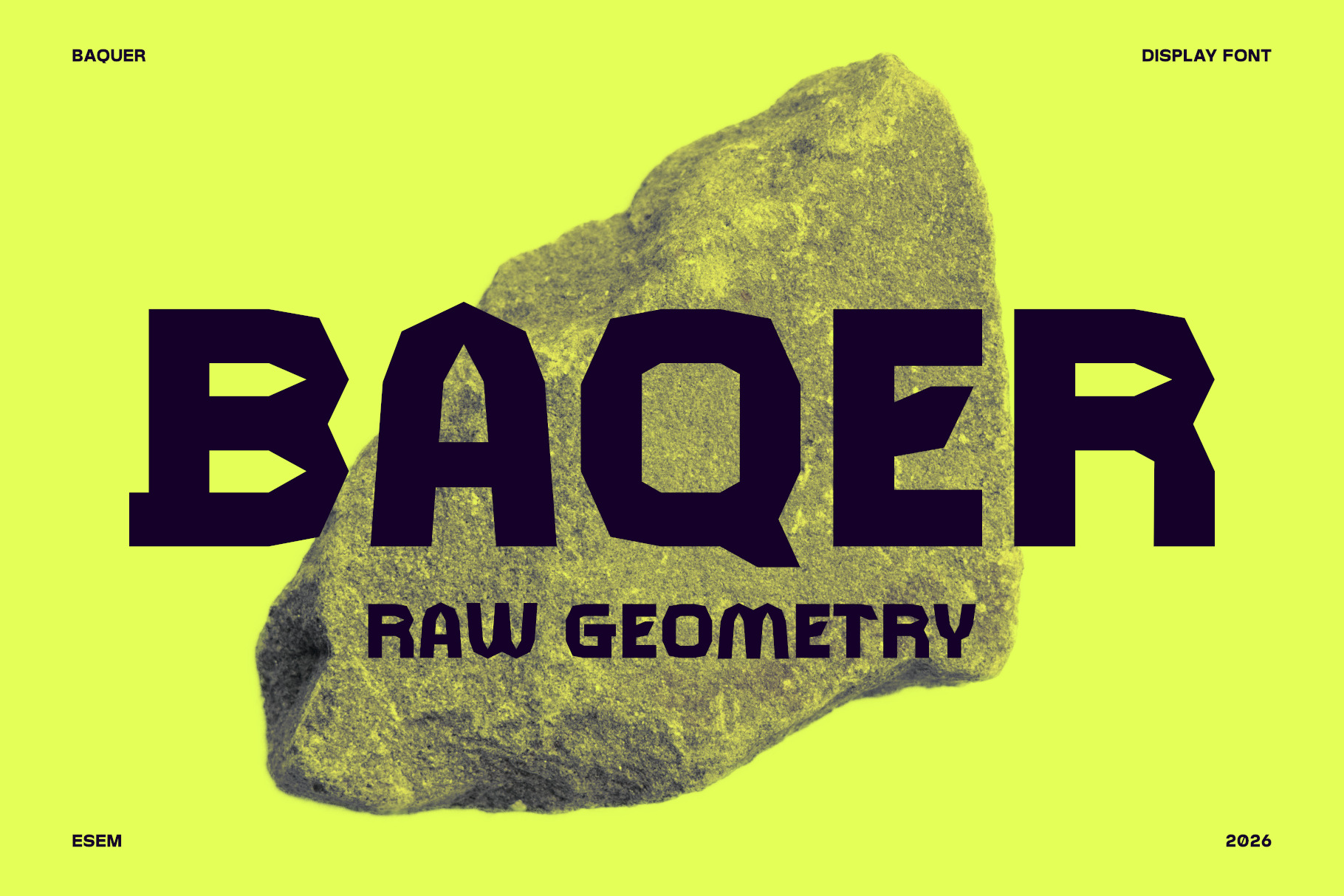
Baqer – Raw Geometry Display Font
BAQER is a display typeface built on the tension between geometry and imperfection. Its forms are structured yet intentionally disrupted — combining clean, constructed shapes with raw, unrefined cuts. The result is a bold and expressive type system that feels both controlled and organic. BAQER works best in large sizes, where its density, balance, and tension can fully emerge.